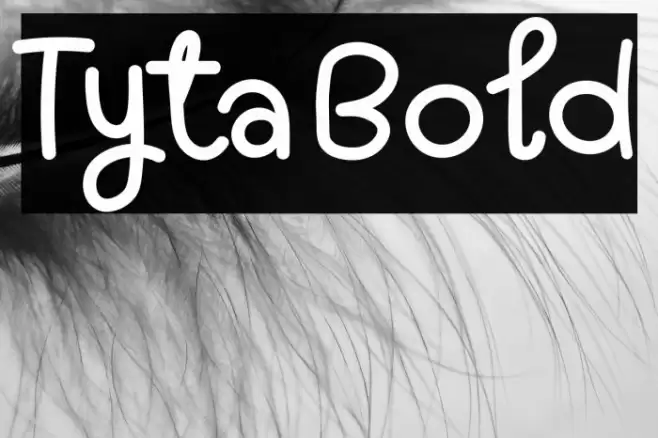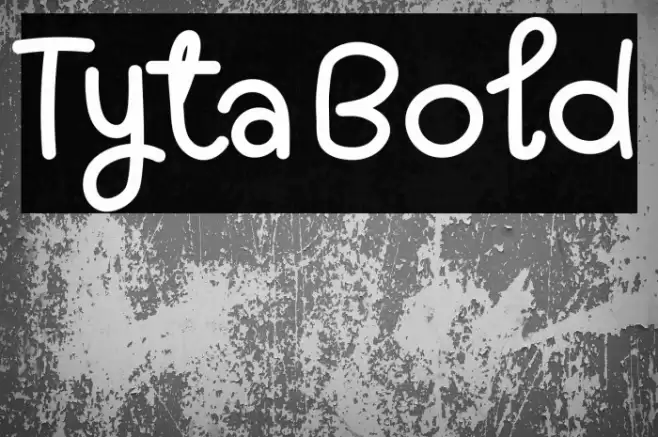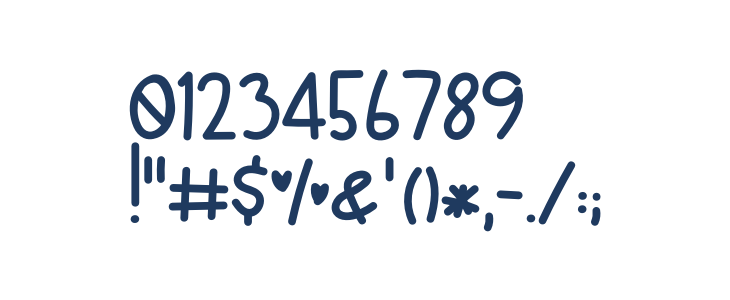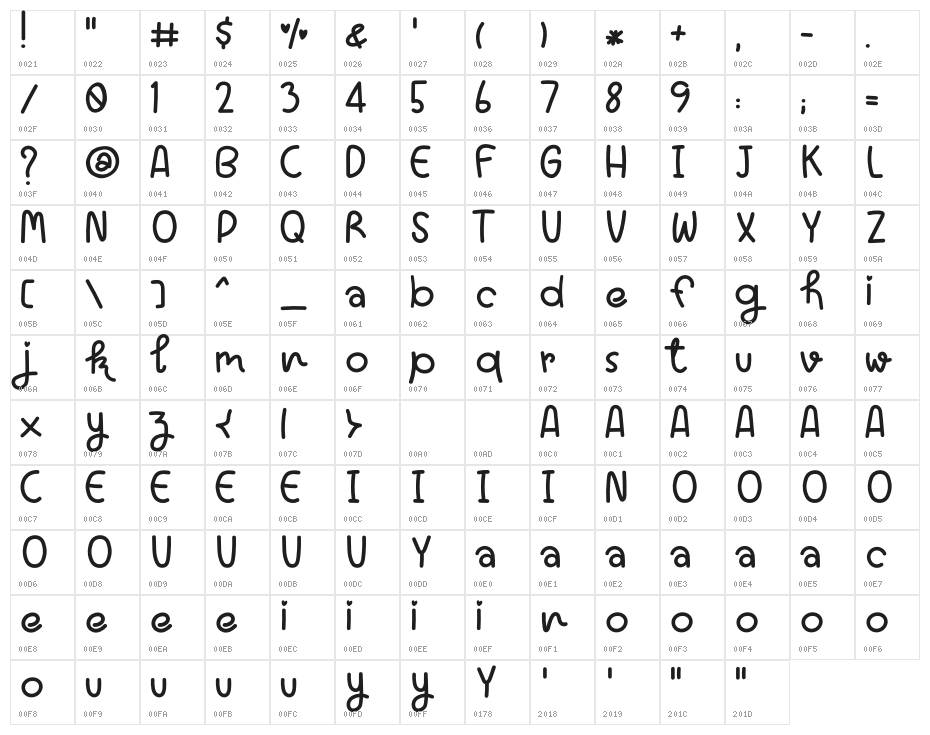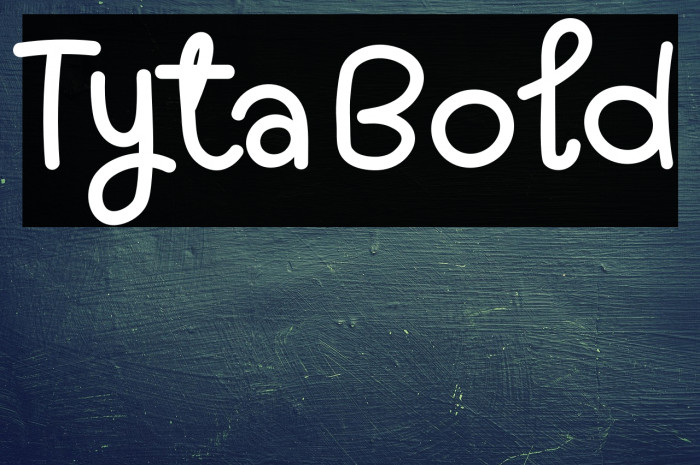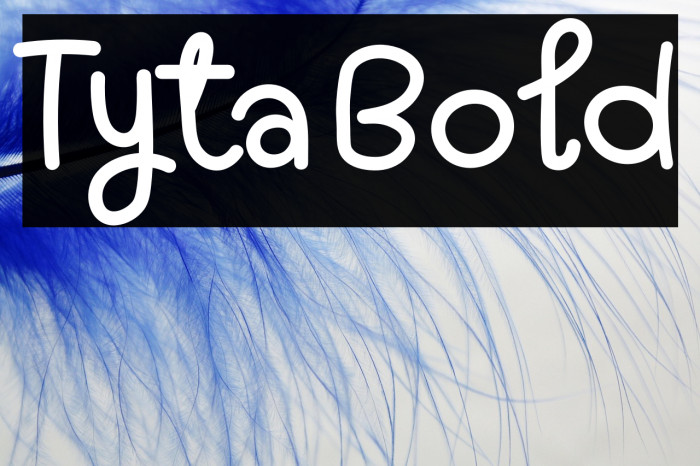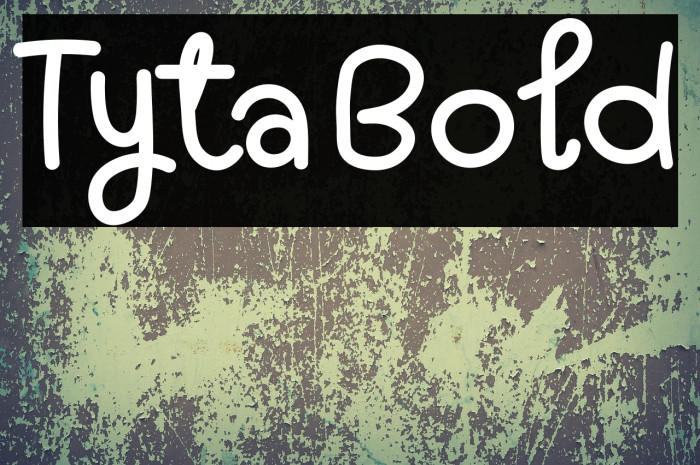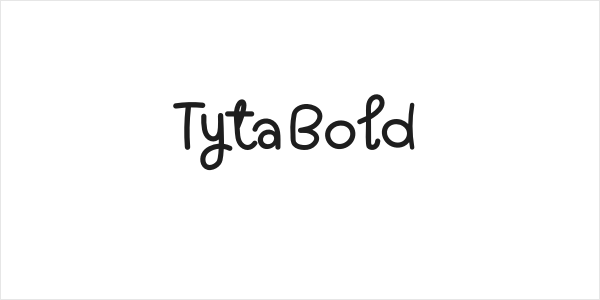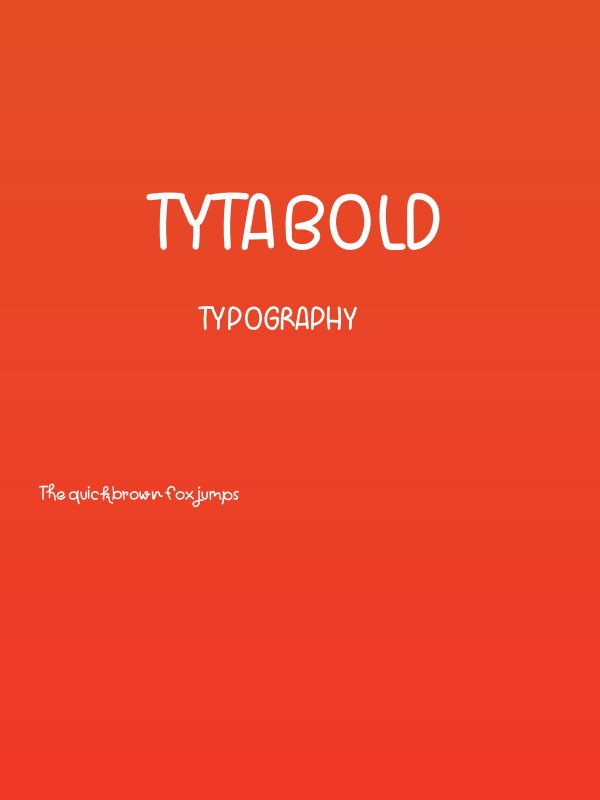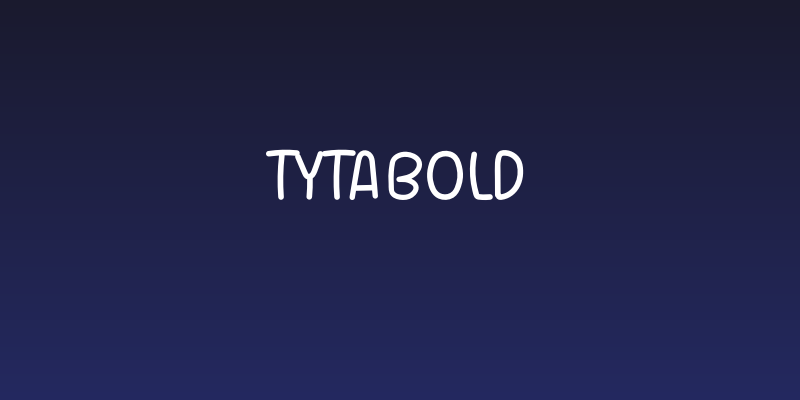
Tyta Bold Font
Tyta Bold Description
This playful and bold font features rounded, smooth edges and a casual handwritten style. The characters are slightly irregular, giving it a friendly and approachable appearance. The uppercase and lowercase letters maintain a consistent flow, with the lowercase letters exhibiting a slight slant that adds to the informal feel. The numerals are clear and easy to read, with a similar rounded style. Special characters are creatively designed, maintaining the overall whimsical aesthetic. This font is perfect for projects that require a touch of personality and warmth.
A playful, bold handwritten font with rounded edges and a casual style from Uncategorized fonts.
- Proposed Projects: Ideal for children's books, greeting cards, playful branding, and social media graphics.
- Overall Style: Playful
- Use Case: Headlines, Logos, Informal Text